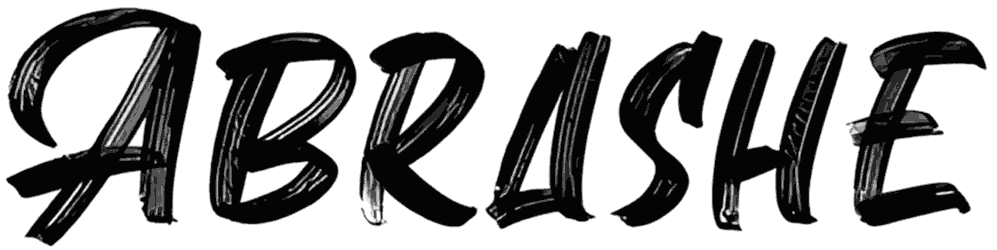
Abrashe Font
Abrashe is like an artist’s brush that adds creativity to any design project. With its unique nibs, it can capture the essence of hand lettering. This brush font can evoke a sense of energy, making it perfect for designs that need more excitement.
Whether it’s a bold headline or a subtle accent, this script font gives character to your typography. Don’t let the lack of lowercase letters limit your creativity. Abrashe font gives you endless possibilities to test different ideas.